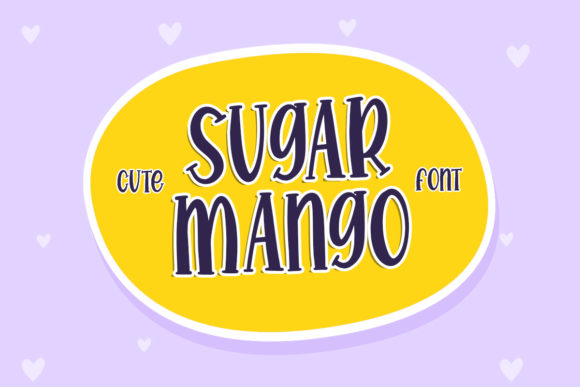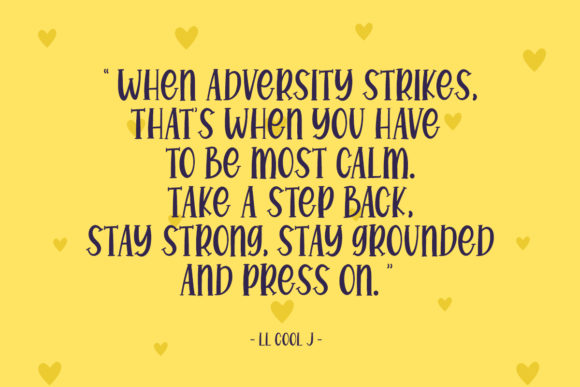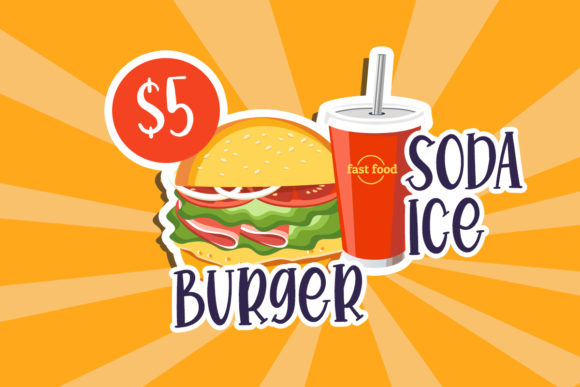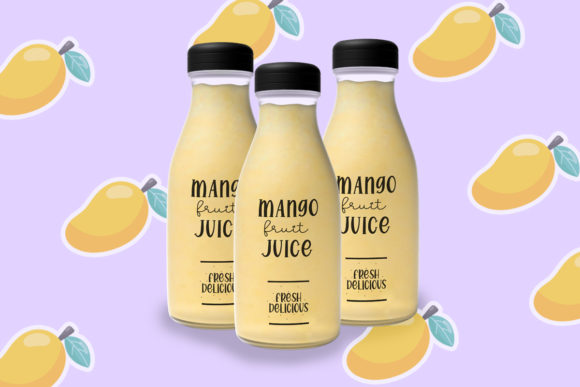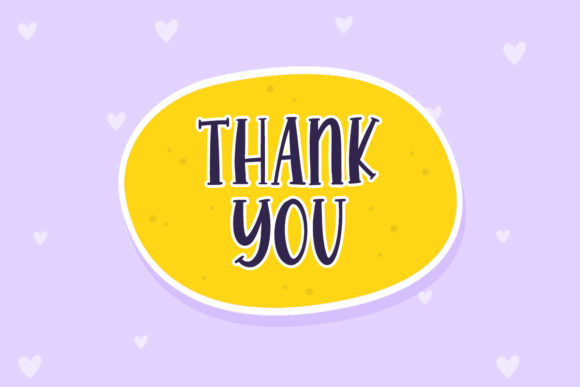
Sugar Mango Font
About Sugar Mango Font
Sugar Mango embodies fun, quirkiness and authenticity. This enchanting handwritten font will turn any creative idea into a true standout. Get creative with its childlike playfulness, and use it to brighten up any kids and school project!